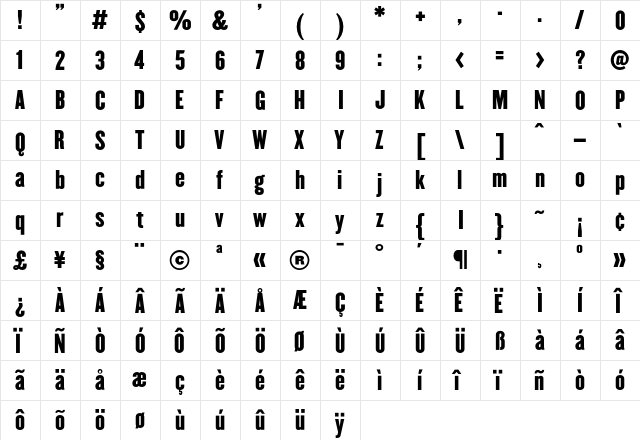
Champion HTF-Lightweight
Design Context for Champion Typeface
Champion takes a measured approach to typography — its balanced proportions and neutral character make it a reliable workhorse for both digital and print work. Its slender proportions lend an understated elegance to any composition.